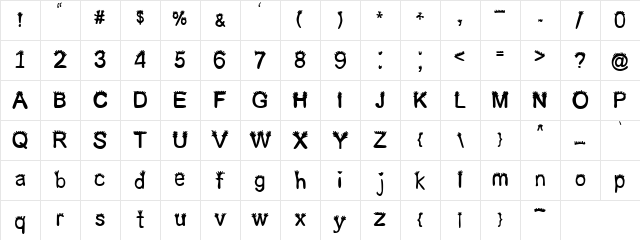
butch crew Regular Free Font
butch crew Regular
Design Context for butch crew
butch crew is a composed and adaptable typeface that performs quietly and consistently across a wide range of design contexts.